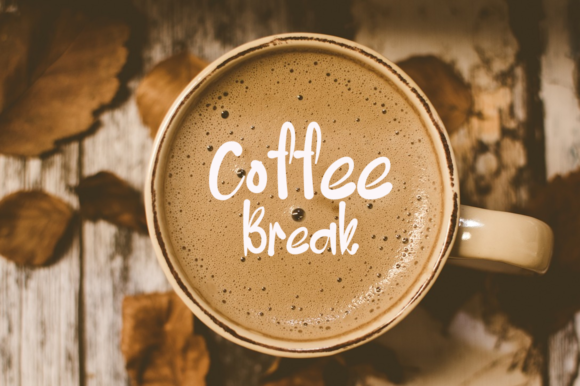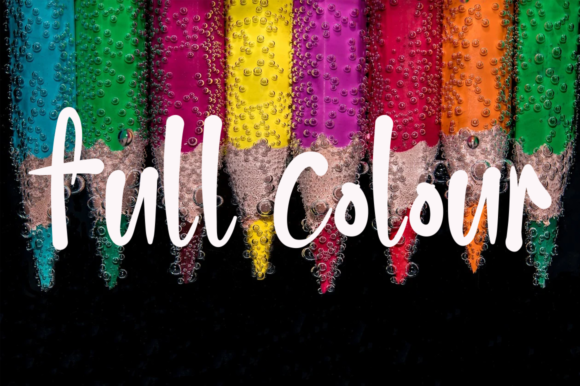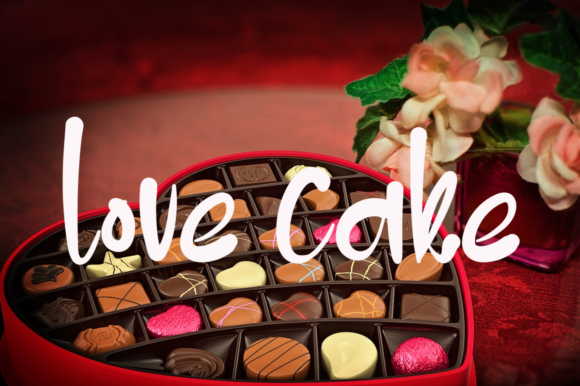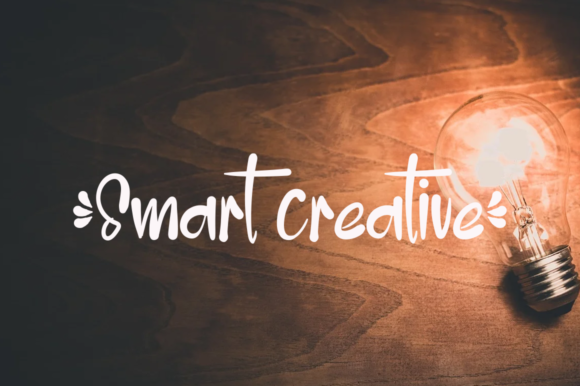
Introduction to Hello Creative Font
Have you ever stumbled upon a beautiful chalkboard quote at a coffee shop or a rustic classroom, and wished you could recreate that magic in your own designs? For many of us, the authentic handwritten look of chalkboard quotes is a timeless and charming design element that can instantly elevate our creative projects.
That’s where the Hello Creative Font comes in – a high-quality, free download that’s specifically designed to give your designs a personal and realistic touch. Whether you’re working on teaching materials, wedding invitations, or social media graphics, this versatile font is sure to be a valuable addition to your design resource toolkit.
With its transparent background and authentic handwritten feel, the Hello Creative Font is the perfect solution for designers who want to add a creative and whimsical touch to their projects without sacrificing quality or professionalism.
Key Features of Hello Creative Font
- Unique blend of modern and vintage style, perfect for creative projects and design resources.
- Designed to work well in a variety of font sizes, from 8pt to 48pt, for versatile application in design.
- Comes in a range of weights and styles, including light, regular, bold, and italic, to suit diverse design needs.
Honest Review: Hello Creative Font
I recently had the chance to work with the Hello Creative Font, and I must say it’s been a great addition to my design resource library. The font is perfect for creating visually appealing and unique elements for my creative projects. The transparency of the background allows me to seamlessly integrate it into my designs.
- What works well: ✨ High-quality design, modern aesthetic, and versatile usage make it an ideal choice for various creative projects.
- What works well: ✨ The font’s simplicity and minimalistic approach make it easy to pair with other design elements, creating a clean and professional look.
Overall, I’m quite impressed with the Hello Creative Font. It’s a fantastic design resource that can add a creative touch to your projects. I would definitely recommend it to fellow designers who are looking for a high-quality, free download. Just be mindful of the font’s boldness and download speed.
Tips for Getting the Most Out of Hello Creative Font
Common Use Cases for Hello Creative Font
The Hello Creative Font is perfect for a variety of creative projects, including brochures, posters, business cards, and social media graphics. Its unique design makes it stand out and add a personal touch to your designs.